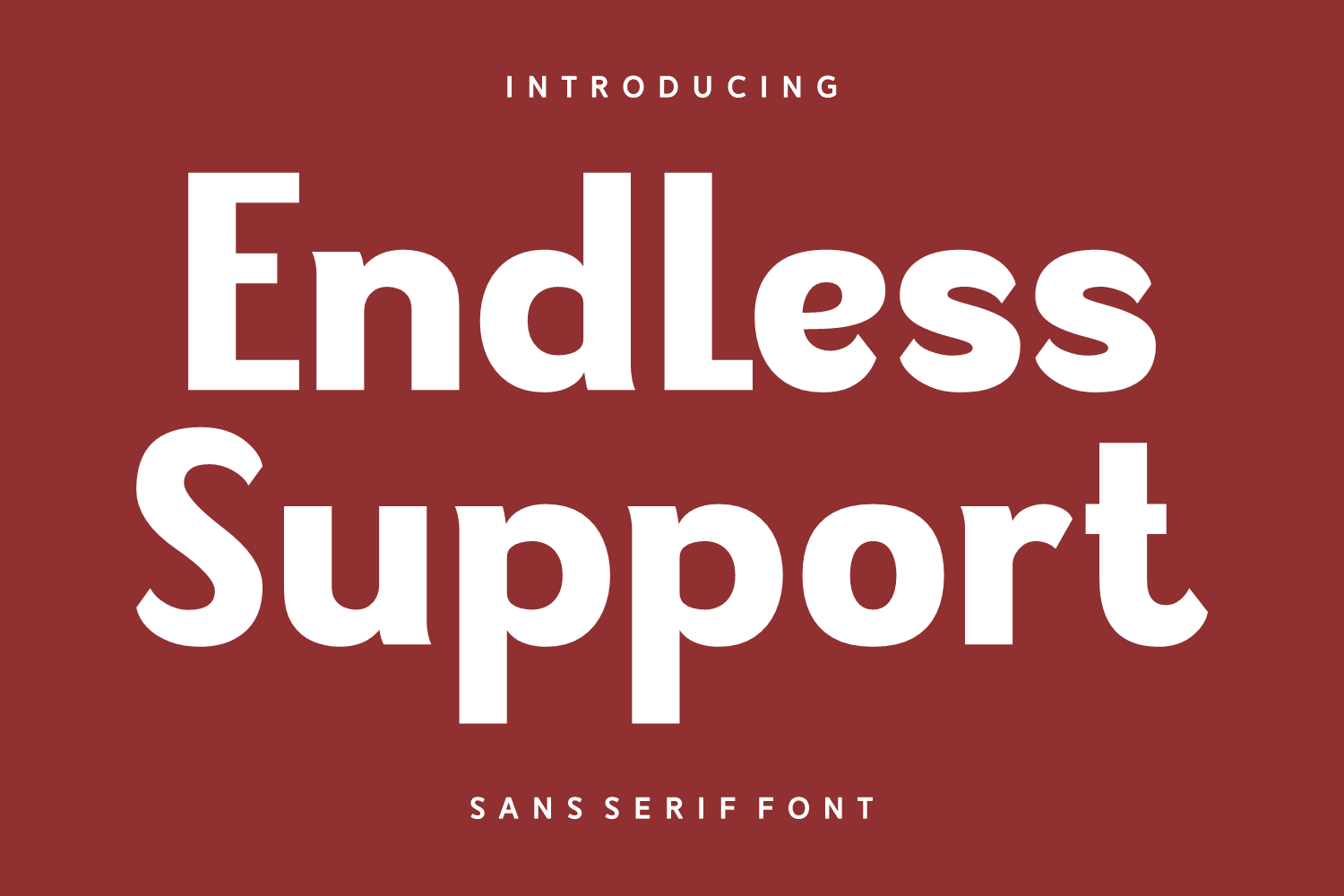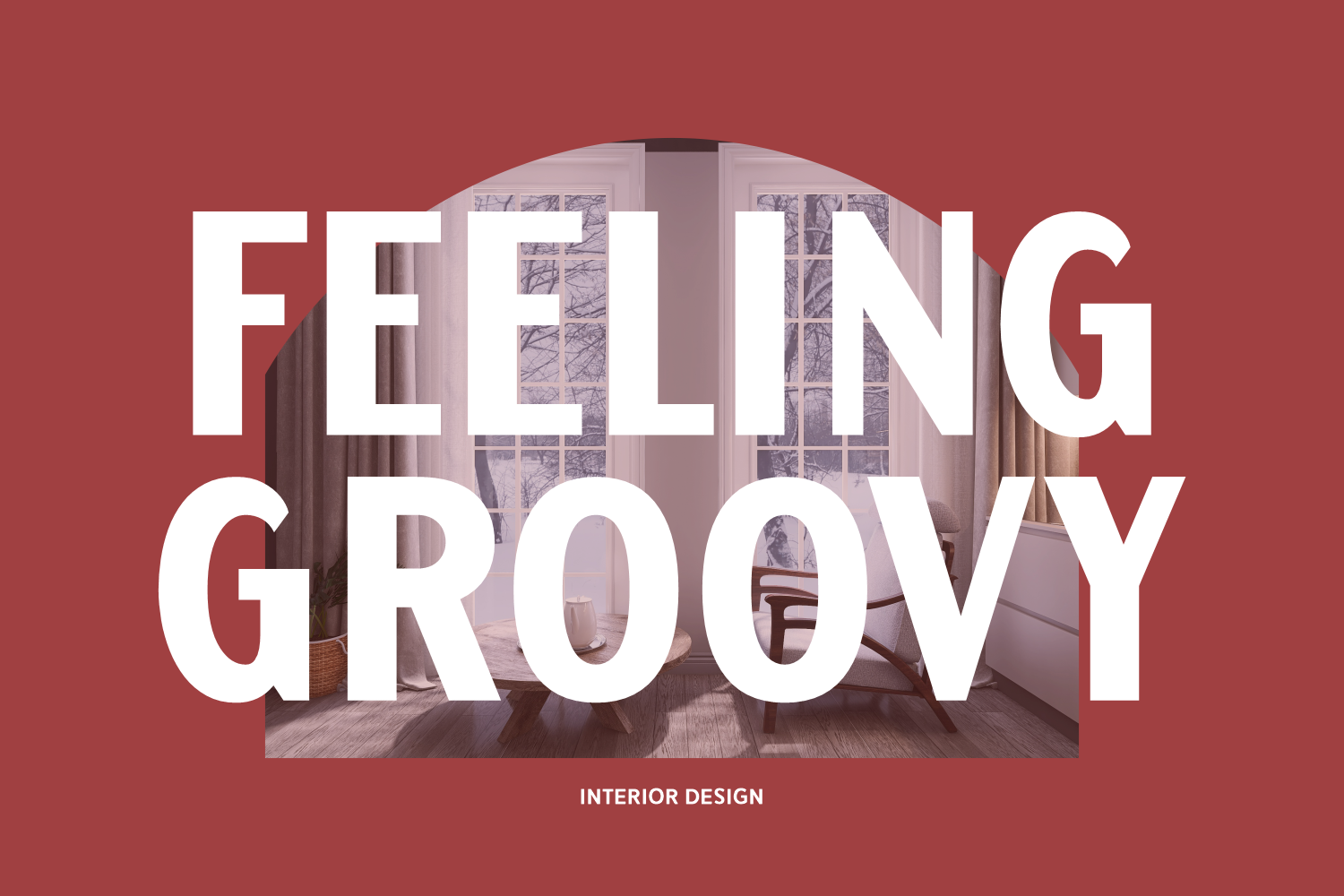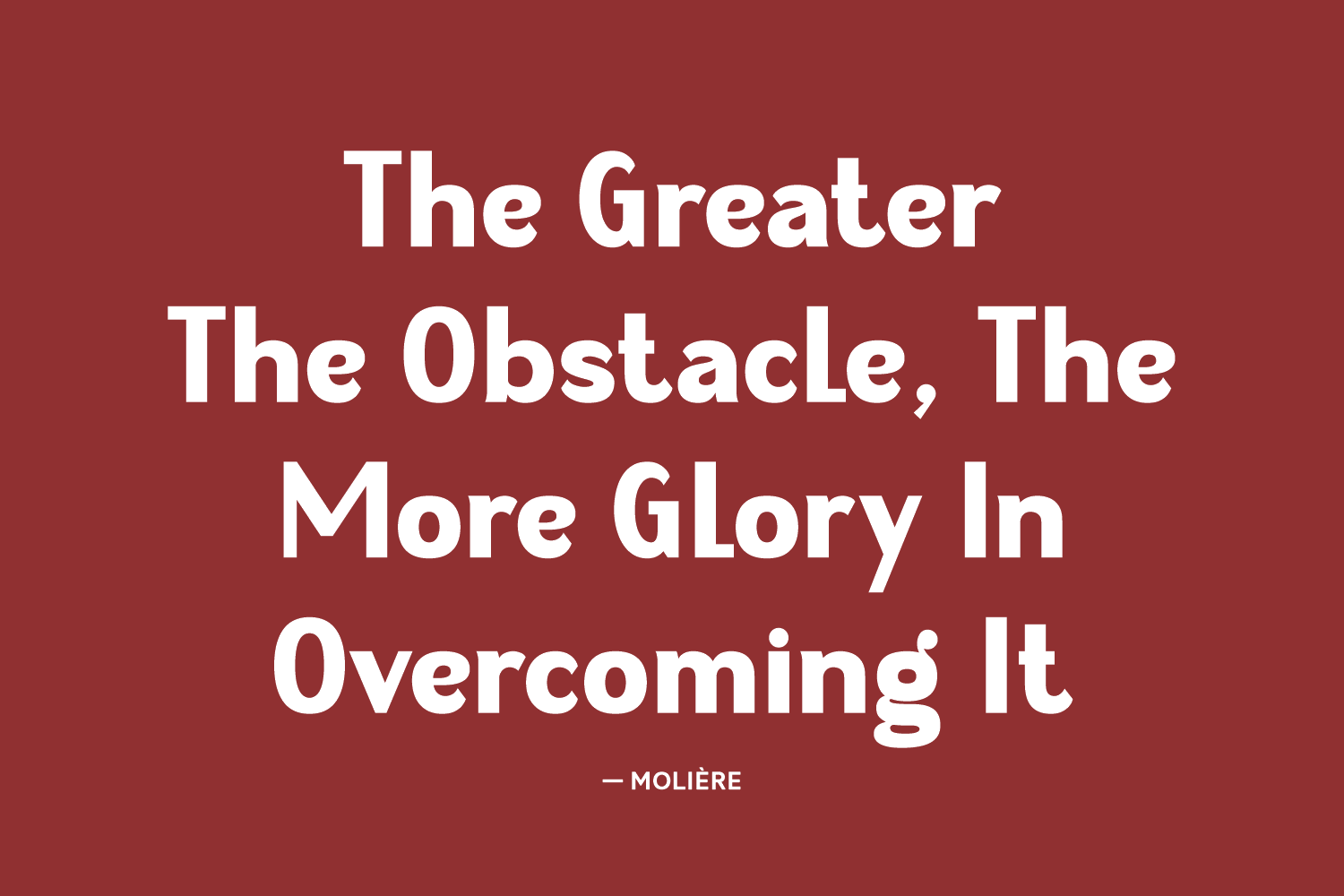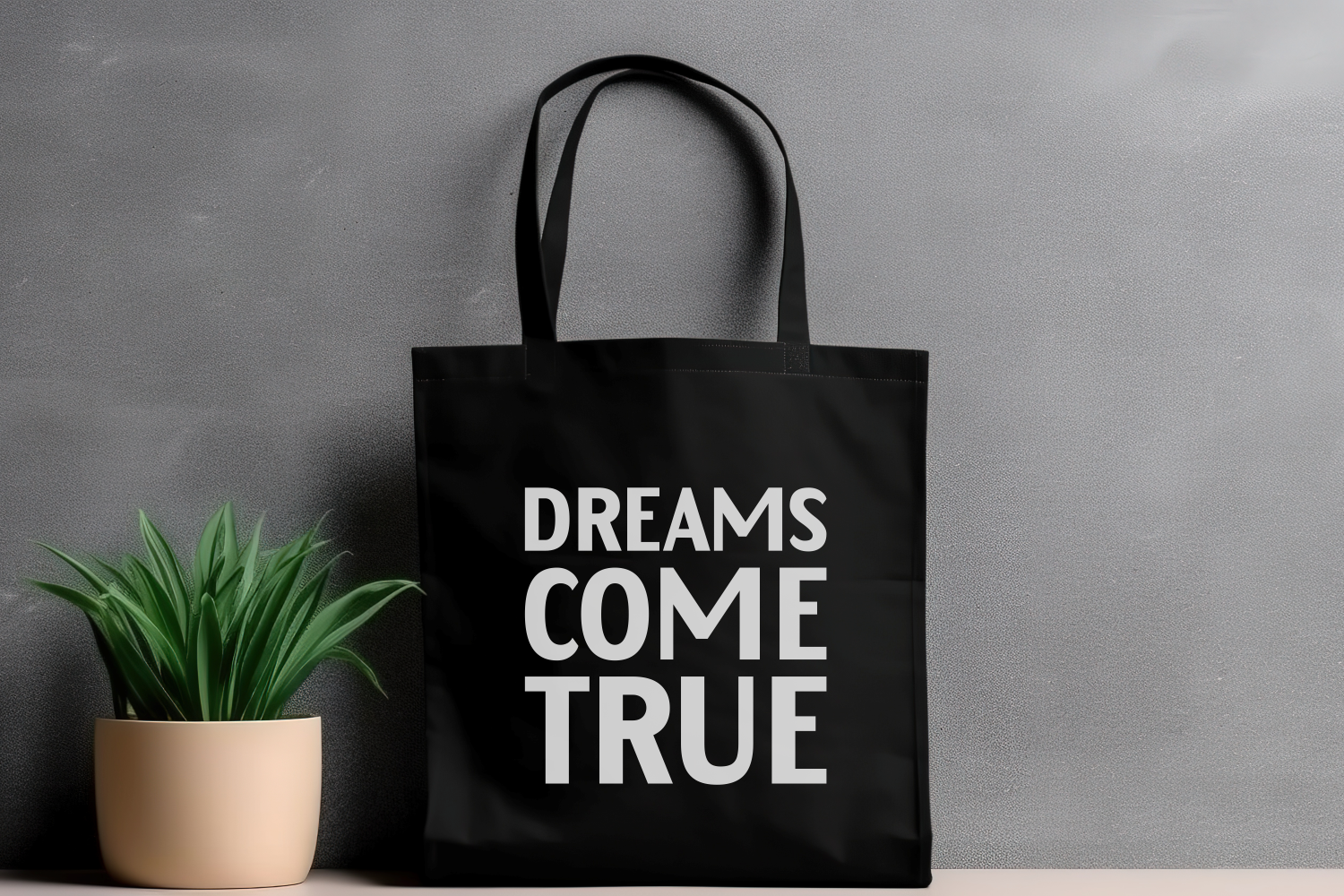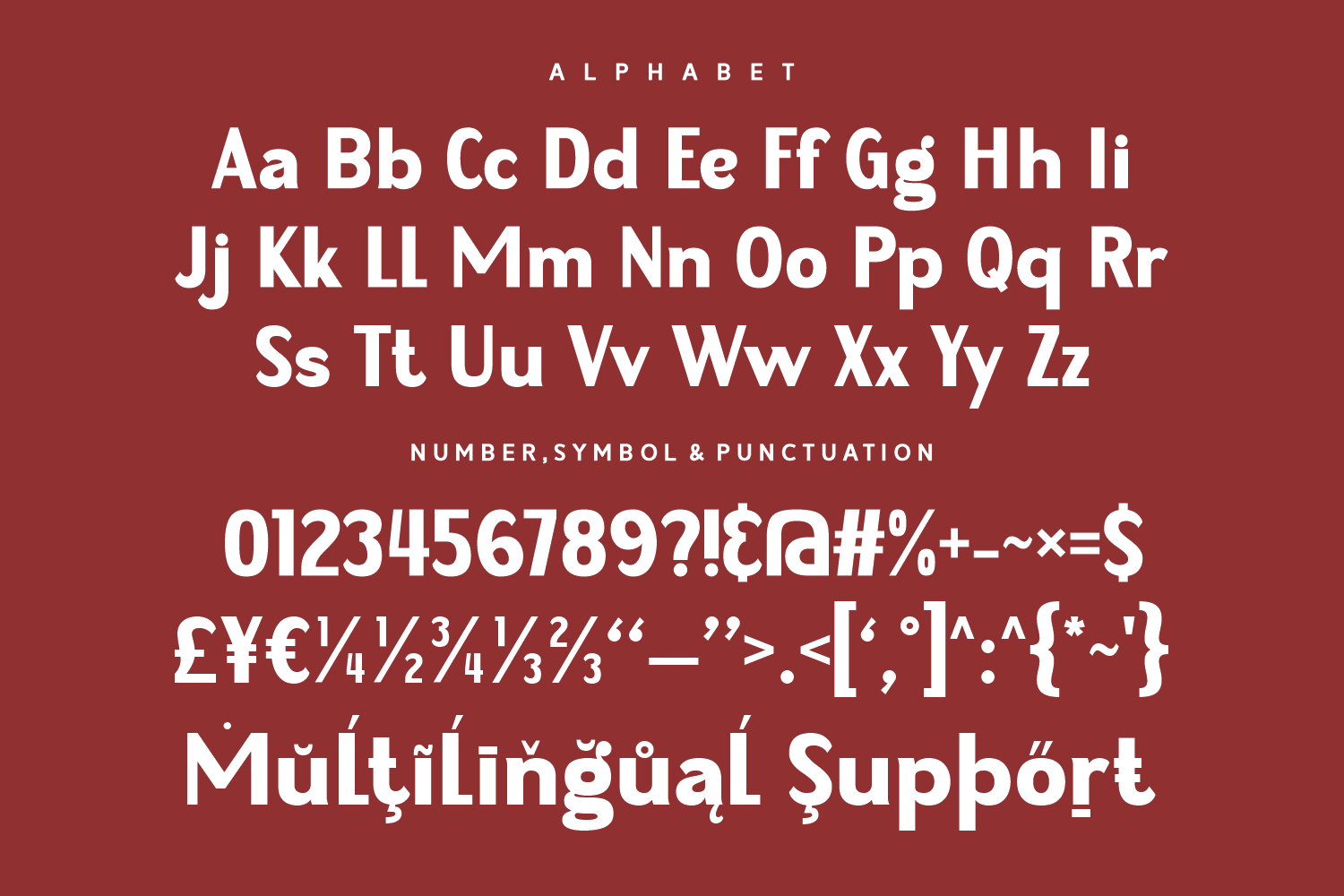
Endless Support
Endless Support is a bold, confident sans-serif font with strong geometric structure and high legibility. Its solid forms make it ideal for impactful headlines, branding, presentations, and campaigns that need to convey clarity, trust, and strength.